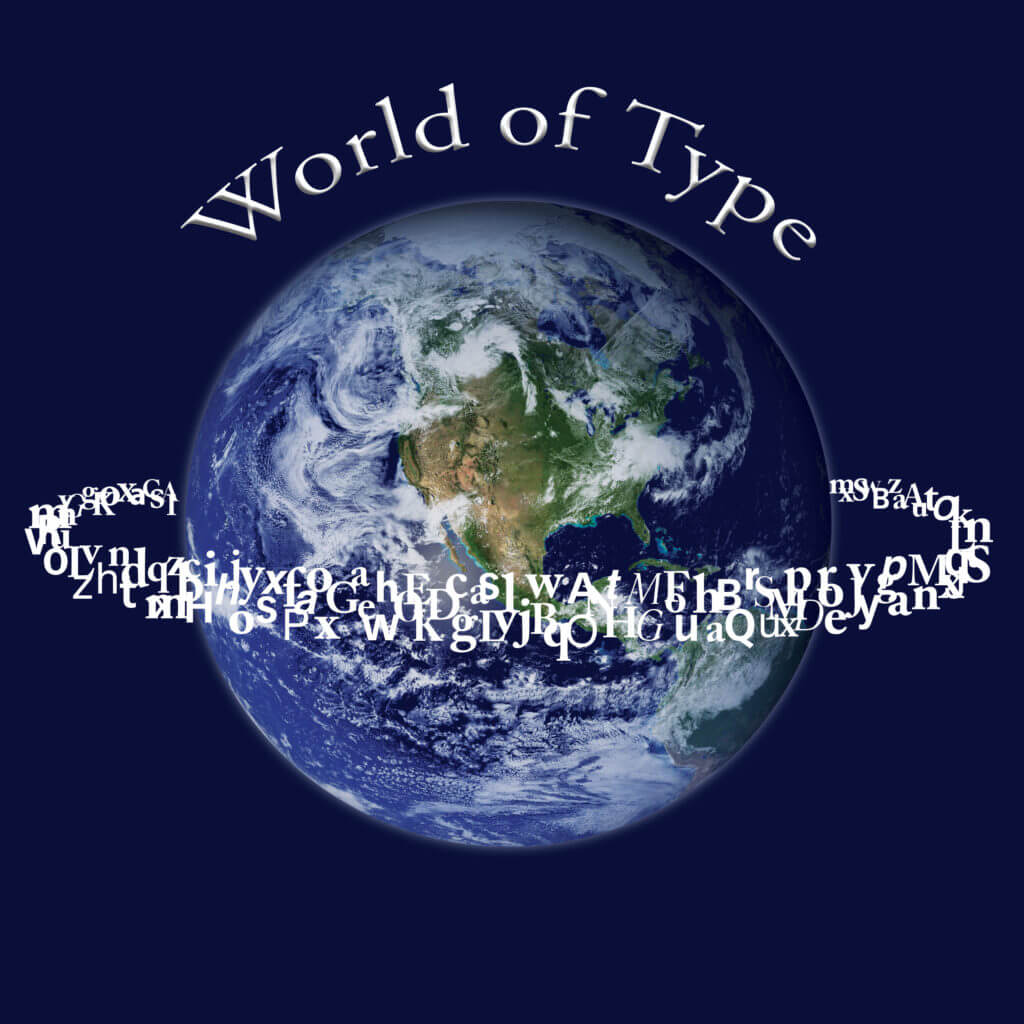
For our TY1SK module we were asked to create a typography podcast cover in photoshop.
Typography has a diverse audience, so I decided to create three very different designs to try and engage different age groups, who have different visual needs.
I started off by brainstorming short phrases including the words type and time. Designing for a podcast implies that the user needs to take time out to engage with the content of the podcast. For my first design I came up with a few phrases like ’Time for Type’, ‘Type talks’, ‘It’s Type ‘o Clock’ and ‘Whats the Type?’
Design ideas and design process
Time for Type
Original two images used to create design
My final podcast design
For my first design I decided to use ‘Time for type‘ and chose two rather classical images from Pixabay, a clock and an hourglass. These images would appeal more to a more mature audience. Using the clone stamp tool and spot healing brush tool, I removed the numbers on the clock face and replaced them with letters instead, forming the words ‘Time for type‘. I also added the hourglass to the clock to fill the 11th hour space.
Experimenting further with the filters and adjustments, I landed on the word ‘posterize’. It opened up a variety of vibrant colours and gave me options to manipulate the mood of my design, adding an old world charm and warmth.
By posterizing the image I gave the old school clock a little contemporary edge. I also chose these rich colours because it is warm, welcoming and energetic. I placed the type clock wise on the clock face, which reads easily up to the 7th hour point where the type seems to be read in reverse. From that point the conventional way in which we read a clock, leads the eye to still make sense of the type. Although the overall appearance is unusual and challenging typographical conventions, I feel that it makes the reader think and engage a bit, suggesting that type is worth thinking about. I added visual texture through contrasting, but complimenting colours, which enhances the effect of distressed wood in the foreground. The orange colour suggests a border above the clock and helps define the space in which the clock stands. The type is in white to make it stand out and easier to read. The overall use of curvilinearity compliments the more classic atmosphere of my design.
Stepping into Type
Original two images used to create design
First attempt at my design Second attempt at design
My final podcast design
My second design is more focused on a younger audience, and came to life from visualising someone stepping out of their usual day and into a space of type. That is how I came to the potential titles for this podcast; ‘Stepping into type’, ‘Into type’, and ‘Type flies’.
I decided on ‘Stepping into type’ because it is a bit more playful. Expanding the idea of playfulness and fun, I imagined stepping through a floating door to meet some flying type. That would give it a whimsical and mysterious feel with a door up in the sky and footprints in the air approaching an encounter with Type. I used scattered type in various sizes and boldness to create visual texture in the sky. The footprints achieve the same effect by breaking up the plane in the foreground, and suggest the way to reach the door. ‘Stepping’ stands out on the line that suggests the two different planes, which separates the ‘usual day’ from the ‘space of type’. The analogous colours I chose are light and cool, and suggest a sense of serenity and airiness. I also used colour to create interest with line and suggestion of shade to strengthen the idea of the door hovering above the ground. I stuck to geometric shapes. I decided not to frame my design to enhance the sense of free and floating text in space.
My approach to this cover is actually quite abstract in appearance. I found an image of an open door in a room, cut it out and placed it on a clean background. I then inserted images of footprints, positioning them in a way that leads your eye towards, and through the door to all the type. I tried to create a sense of depth by using larger footprints in the foreground which then gets smaller towards the background. I feel it creates distance and gives a dynamic feel to the image.
I then played around with the different effects, and I edited the footprints with the layer style palette, adding an outer glow to them. Posterizing my image gave it a more abstract 3-dimensional appearance, which is accentuated by the drop shadow. I actually accidentally created the blue and milky purple background whilst experimenting with the different adjustments. I decided to keep it like this because blue and purple are analogous colours, which support each other. The blue is dominant, supported by the milky purple and then white which accentuates the text. The colours work well next to each-other. The blue also gives an airy and light feeling which adds to the whimsical playfulness of my design. The faded purple suggests a more earthy tone which also grounds my design.
I played around with the wording, trying to find a good composition for them. The horizontal placement of the words ‘Stepping into type’ supports the linear structure of the composition, and appears solid amongst the flying letters. The more structured layout supports clear communication, especially because the conventional direction of reading is challenged by the layout. The footprints are key to direct the viewer’s eye from the bottom of the composition, guiding the reading and comprehension in the correct order.
World of Type
Original image used to create design The inverted design
My final podcast design
My third design came from the thought of how typography is global and how it affects everything. So I came up with ‘Type the world’, ‘Typo space’, ‘World of type’ and ‘Orbit into type’.
I decided to go with a simple title ‘World of type’, and chose an image of the globe, a clear symbol which is always relevant when depicting things that concern the world. To me an image of the globe is old and new in the same way, which will equally attract a young and mature audience. I like this design the most. I think it will speak to a wider audience because it is very universal. It symbolises the relevance of Typography in the world and clearly communicates how text and typography makes the world go round. The deep blue background is solid, calm and reassuring, and form part of a grounding frame to globe. Visual texture is added by the scattered white type ‘in orbit’. Although I didn’t use formal lines, I did achieve it by a suggested line- the type running around the earth. The circular shape of the earth is hugged at the top with the podcast title written in a curve. This compliments the curvilinear elements in my design and adds visual balance to the centred composition.
The article also stated not to use too many fonts, because writing on the podcast needs to be clearly visible. It also said that using fonts with thicker lines and clear characters help your writing to stand out more.